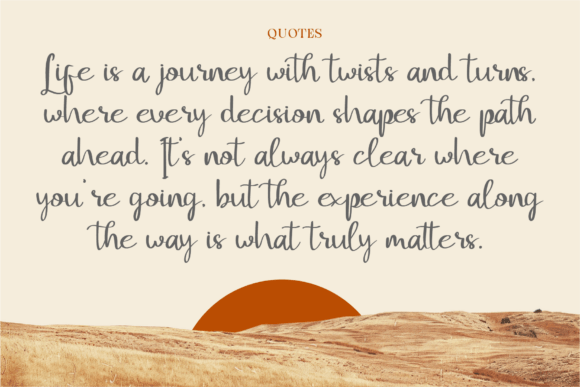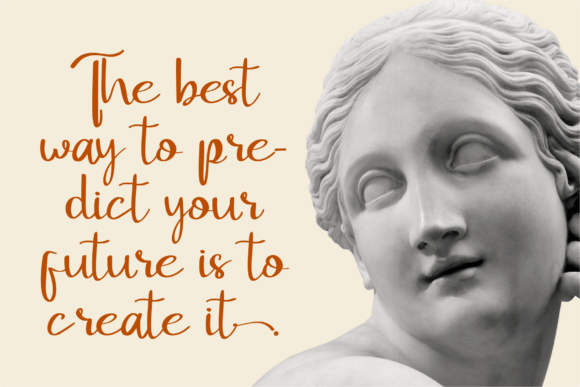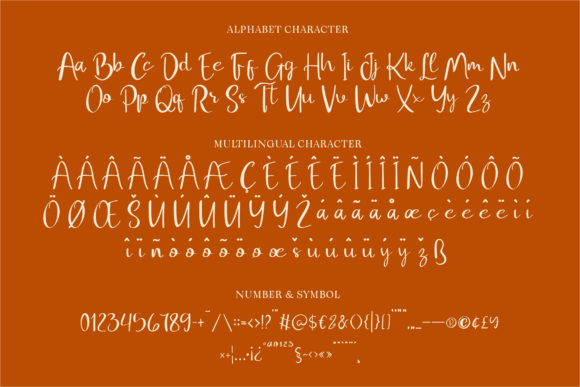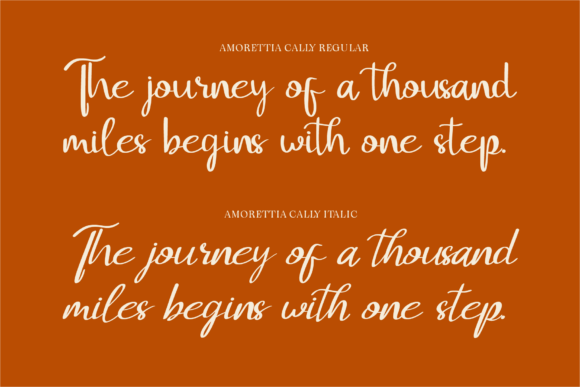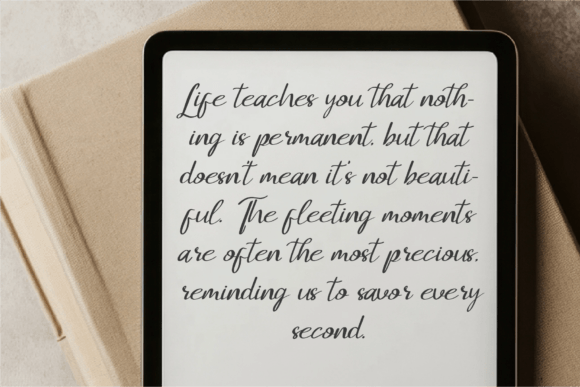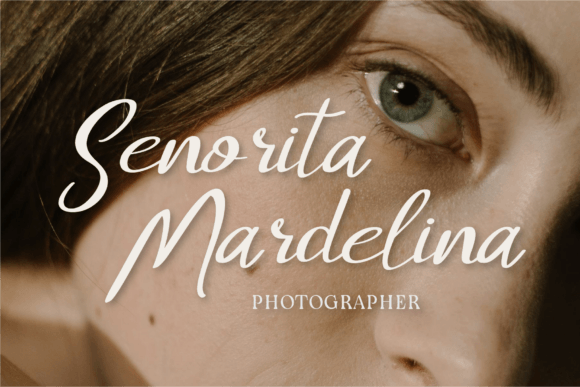
Introducing Amorettia Cally: The Elegant Script Font for Luxurious Designs
In the world of typography, a beautiful font can elevate any design from ordinary to extraordinary. For those seeking a script font that exudes sophistication, elegance, and a touch of personal charm, Amorettia Cally is an exceptional choice. This stunning beauty script font seamlessly blends delicate curves with a touch of bold elegance, making it perfect for a variety of luxurious design projects.
The Unique Charm of Amorettia Cally
Amorettia Cally is more than just a font; it’s a design element that brings a luxurious charm to any project. Its handcrafted details and flowing lines are meticulously designed to add a touch of sophistication and elegance. Whether you’re creating wedding invitations, upscale branding, social media graphics, or artistic quotes, Amorettia Cally ensures that your projects stand out with a refined, high-end feel.
One of the key advantages of Amorettia Cally is its versatility. This font is not limited to a specific type of design; rather, it can be used across a wide range of projects. From elegant wedding stationery and luxury brand logos to captivating social media posts and inspirational quotes, Amorettia Cally adapts effortlessly. Its unique blend of delicacy and boldness ensures that your designs exude sophistication while maintaining a personal, heartfelt touch.
For designers and crafters, finding the right font can often be a challenge. Amorettia Cally offers a solution that combines aesthetic appeal with practicality. Its easy readability and flexibility make it an excellent choice for both digital and print designs. Whether you’re working on a client project or a personal craft, Amorettia Cally provides the perfect blend of style and substance.
Why Choose Amorettia Cally?
There are several reasons why Amorettia Cally stands out in the world of script fonts:
- Elegant Design: Its delicate curves and bold elegance make it perfect for luxurious designs.
- Handcrafted Details: Adds a personal touch to any project.
- Versatility: Suitable for a wide range of design projects.
- Sophistication: Brings a high-end feel to your designs.
- Easy to Use: Ideal for both beginners and experienced designers.
Using Amorettia Cally in Your Projects
Incorporating Amorettia Cally into your designs is straightforward. Here are a few ideas to get you started:
- Wedding Invitations: Create beautiful, bespoke wedding invitations that set the tone for the big day.
- Luxury Branding: Elevate your brand with a sophisticated logo and marketing materials.
- Social Media Graphics: Engage your audience with stylish and elegant social media posts.
- Artistic Quotes: Add a touch of elegance to inspirational and thought-provoking quotes.
Amorettia Cally is a stunning beauty script font that offers the perfect blend of elegance, sophistication, and personal charm. Its versatility and ease of use make it an excellent choice for designers and crafters looking to elevate their projects. Whether you’re creating wedding invitations, luxury branding, social media graphics, or artistic quotes, Amorettia Cally ensures that your designs exude a luxurious charm that captivates and inspires.